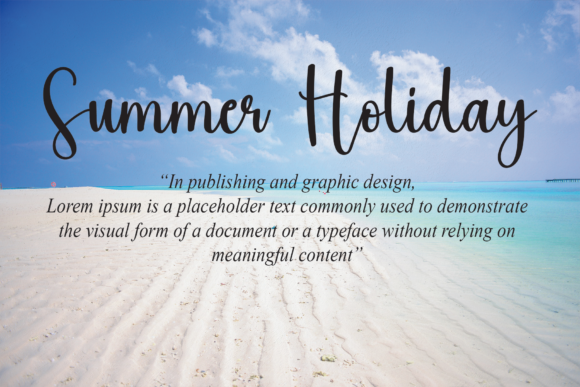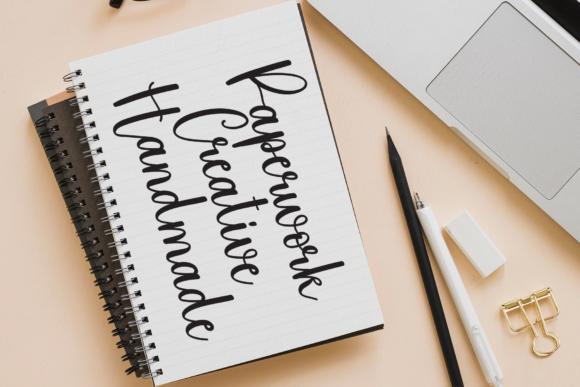
Kichenset Font
db-ku.com - Script & Handwritten -- Kichenset is a free-flowing and fashionable script font. It is perfect for any branding project such as logos, t-shirt printing, creative products, and more. It will look extraordinary in a variety of contexts.